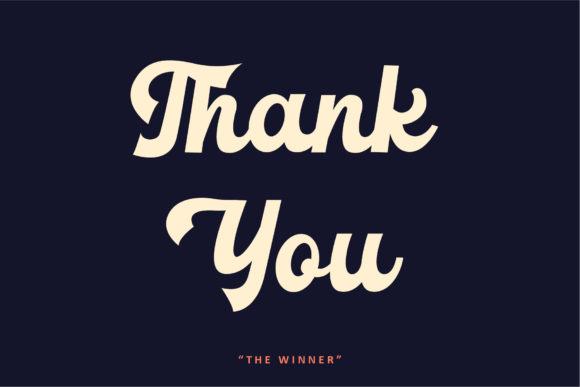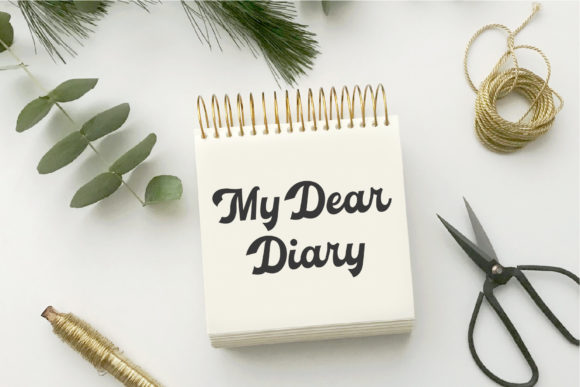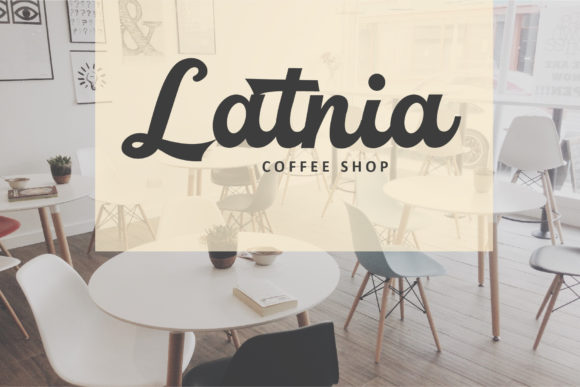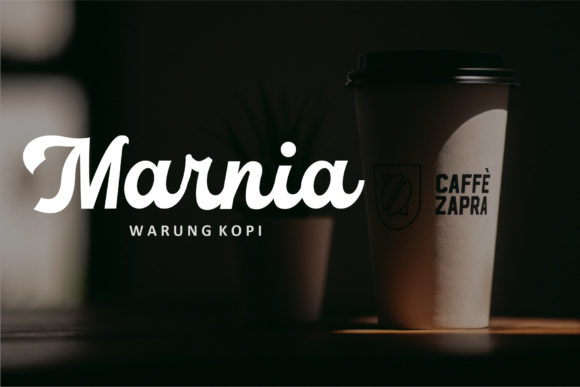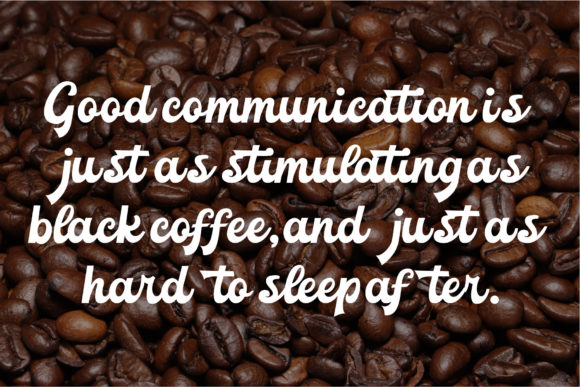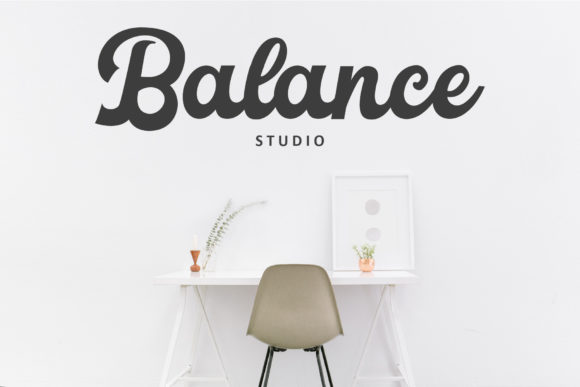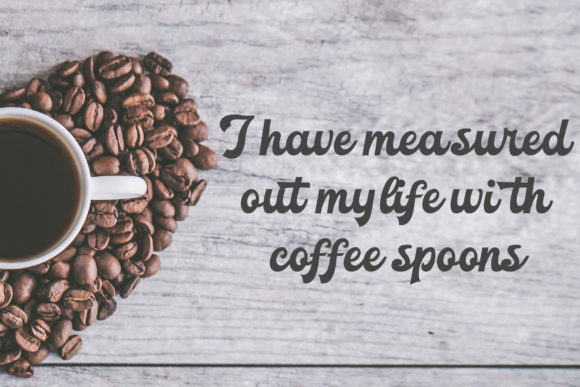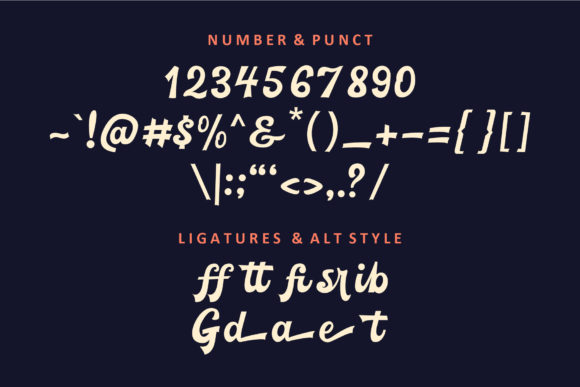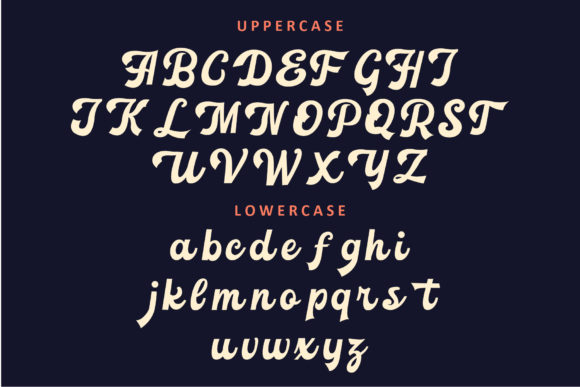
Gamond Font
About Gamond Font
“Gamond” is a stunning and bold handwritten font that exudes style and confidence. Designed with meticulous attention to detail, this font is perfect for creating captivating headlines and logotype projects. With its strong and dynamic appearance, “Gamond” adds a touch of nostalgia and character to your designs, making them truly stand out.
The bold and impactful nature of “Gamond” makes it an excellent choice for creating eye-catching headlines that demand attention. Whether it’s for a magazine cover, poster, website banner, or any other project that requires a strong visual presence, this font delivers with its bold and confident letterforms.
The unique charm of “Gamond” lies in its handwritten style, which brings a sense of authenticity and personality to your designs. The slight irregularities and subtle variations in each letter give it a handcrafted feel, adding a touch of nostalgia and character that resonates with viewers.
One of the strengths of “Gamond” is its versatility. While it excels in creating powerful headlines, it can also be used to craft impressive logotypes and branding materials. Whether you’re designing a logo for a modern brand or a vintage-inspired business, this font adapts effortlessly to various design styles, adding a distinct and memorable touch.
The nostalgic character of “Gamond” makes it suitable for projects that aim to evoke a sense of vintage or retro aesthetics. From posters and album covers to merchandise and packaging, this font injects a timeless charm that resonates with those who appreciate classic design elements.
In summary, “Gamond” is a gorgeous and bold handwritten font that adds style, confidence, and nostalgic character to your headlines and logotype projects. Its strong and dynamic appearance, combined with its versatility, allows it to adapt to various design styles and capture the attention of viewers. Whether you’re creating powerful headlines or crafting memorable branding materials, “Gamond” is sure to make a lasting impression.